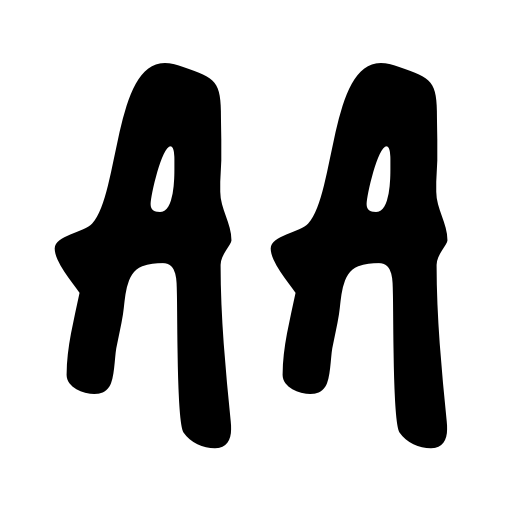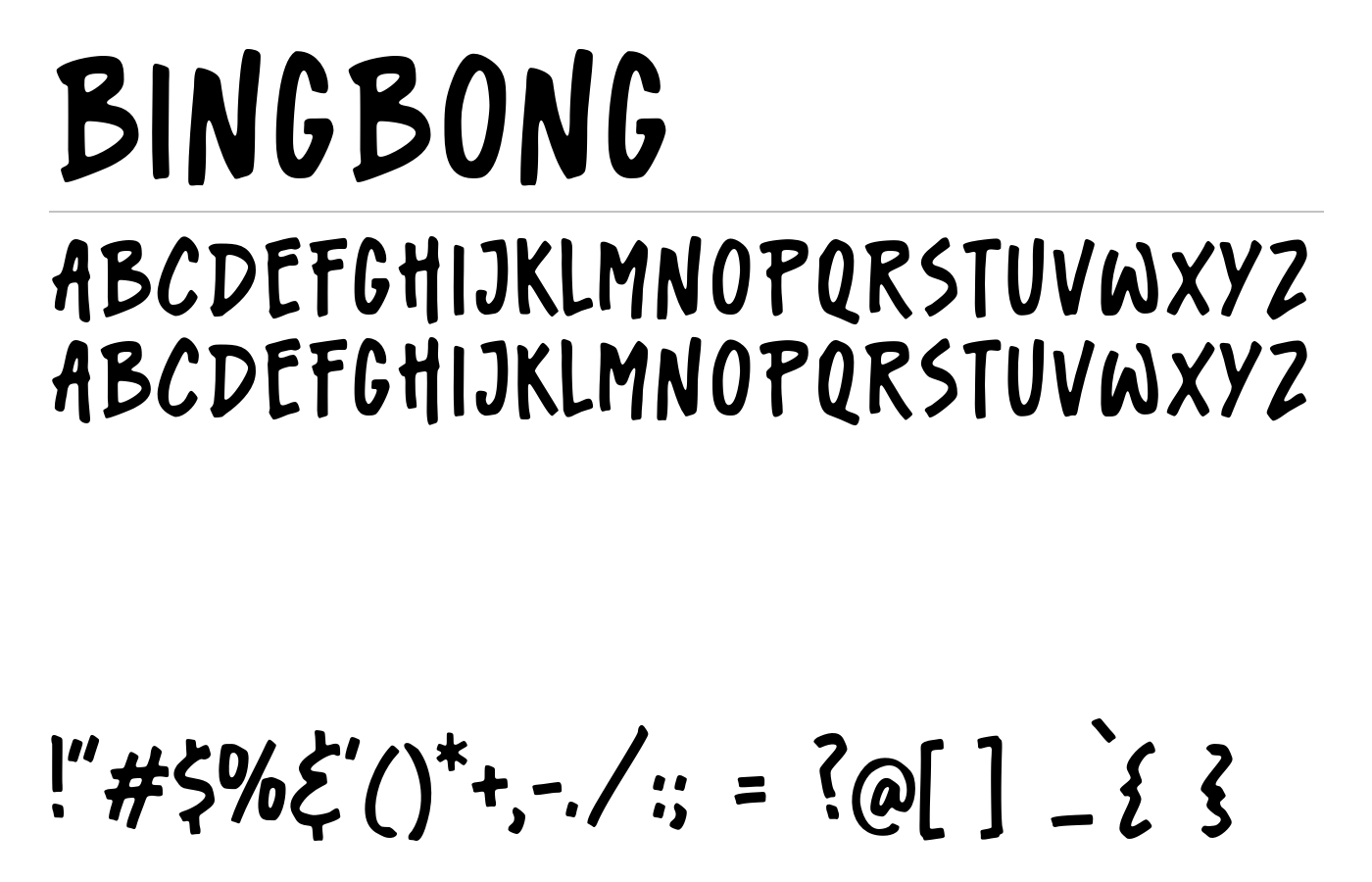
Bingbong is a playful, hand-drawn sans serif font with a casual and friendly feel. Its uneven strokes and slightly quirky shapes make it perfect for fun, informal designs like children’s books, posters, or creative branding where a lively and approachable vibe is desired. This font works best in headlines and display uses, adding personality and charm without feeling rigid or formal.
Bingbong Font
About Bingbong Font
| Font family | Bingbong Font |
| Designer | Annas Alam Yahya |